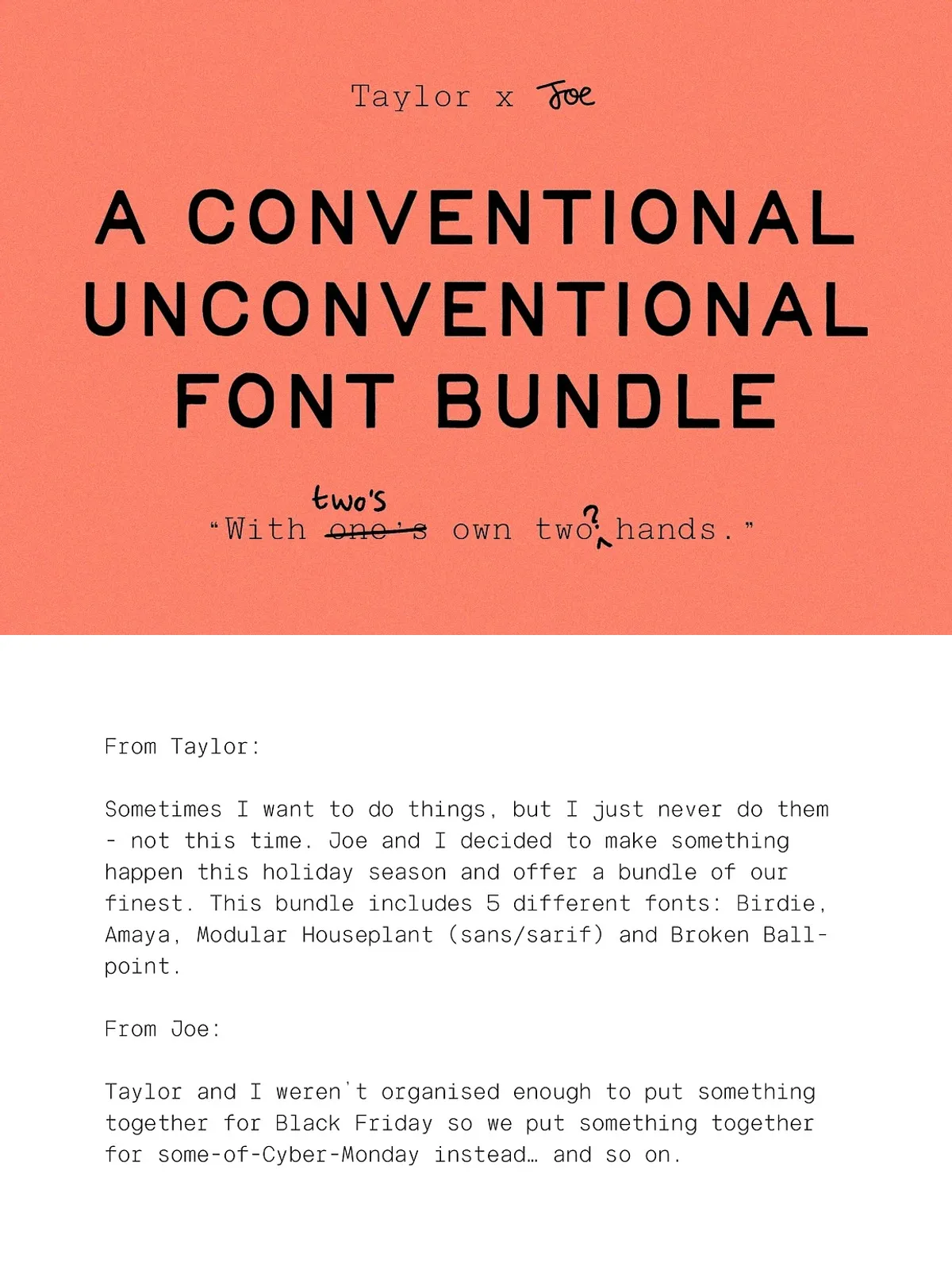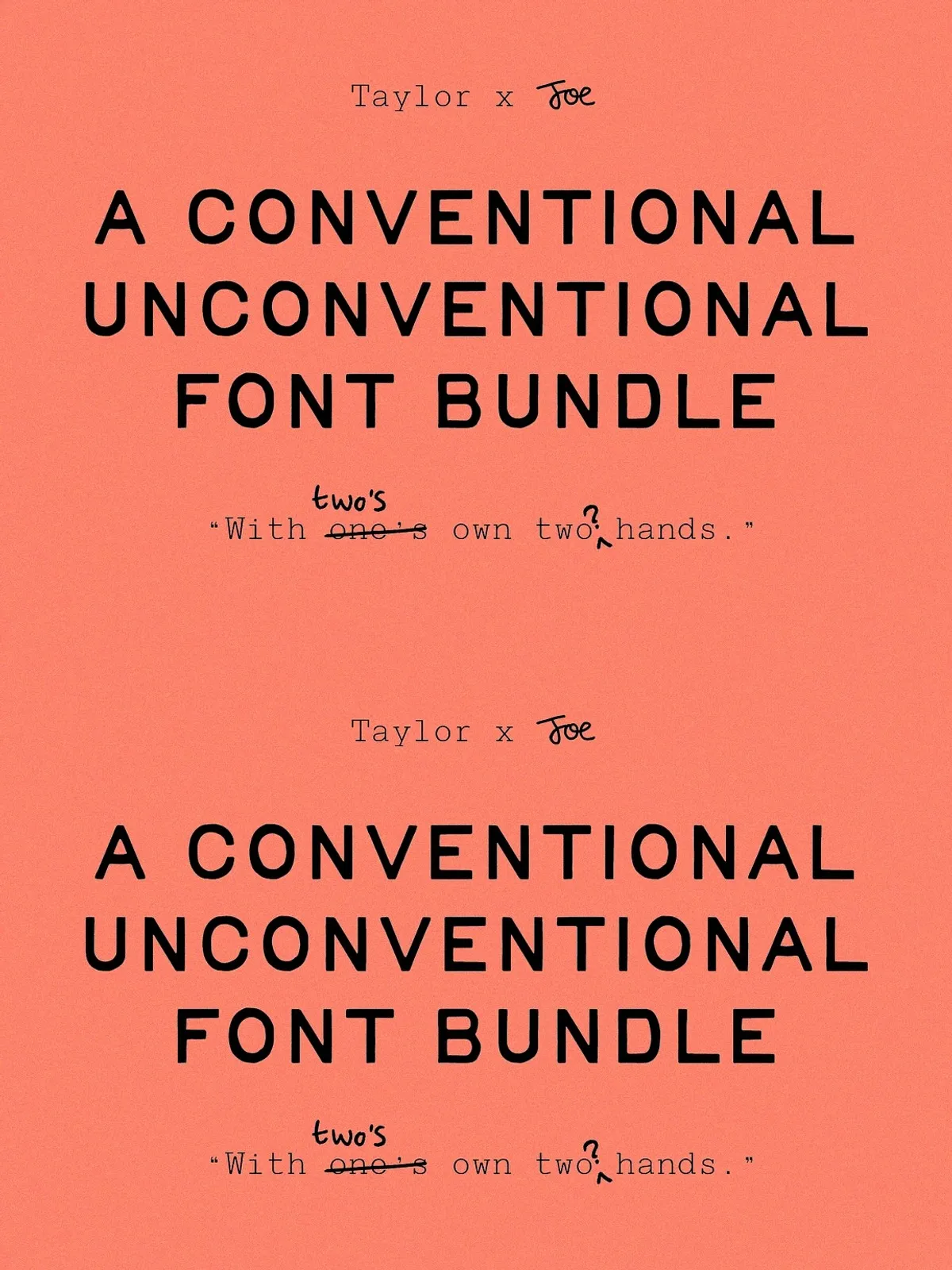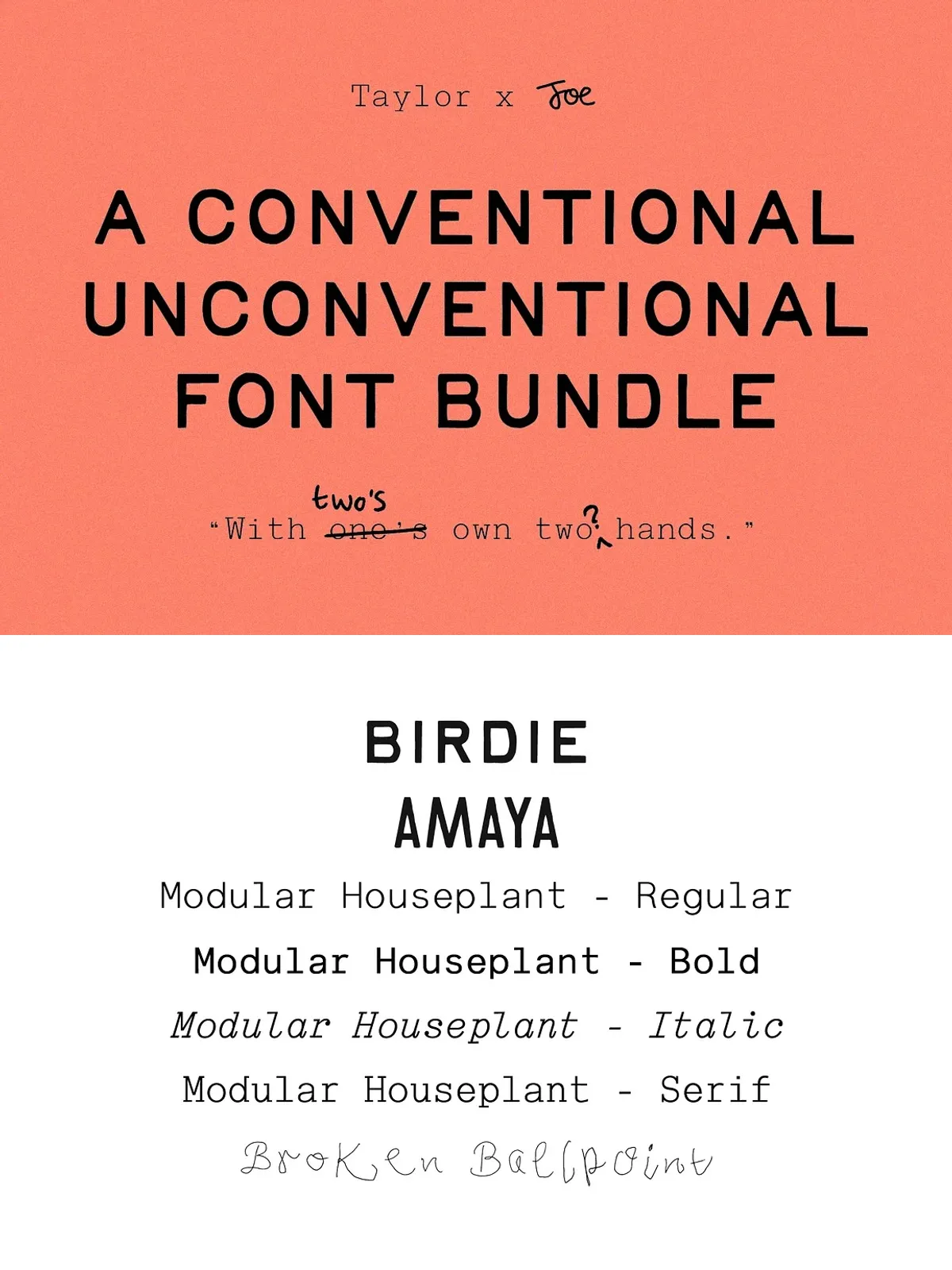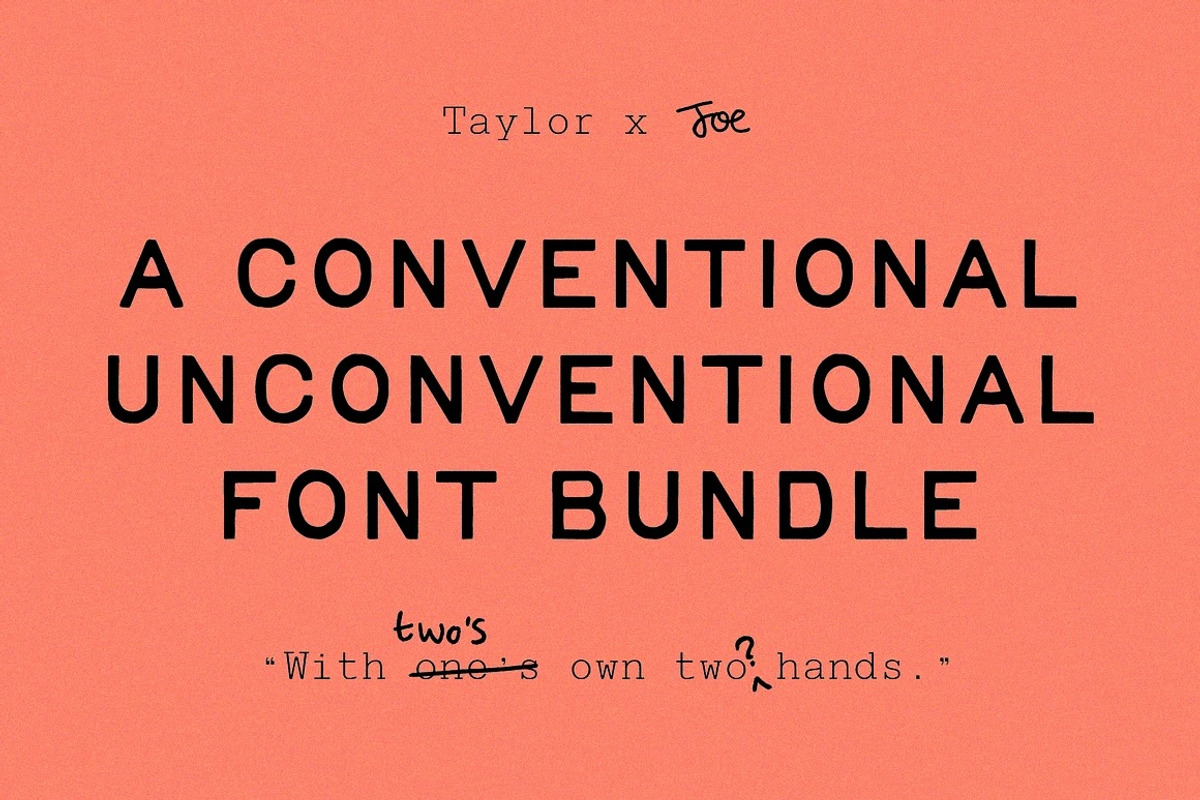
Step into the world of forward-thinking design with the exclusive Taylor Penton & Josiah Goldsmith Font Bundle — a meticulously curated collection that blends classic elegance with bold, unconventional expression. Whether you’re building a brand identity, crafting editorial layouts, or designing digital art, this bundle empowers you to break boundaries and make a lasting visual impact.
Curated by two leading voices in contemporary type design — Taylor Penton and Josiah Goldsmith — this bundle is not just a collection of fonts. It’s a creative toolkit for designers who value precision, personality, and purposeful aesthetics. From clean, geometric forms to expressive handcrafted lettering, each typeface was designed with intention and craftsmanship in mind.
What makes this bundle exceptional isn’t just the quality of the individual fonts — it’s the synergy between them. Taylor Penton’s work often emphasizes clarity and minimalism, while Josiah Goldsmith brings depth, rhythm, and artistic flair to his designs. Together, their styles create a dynamic range that supports both structured and expressive design approaches.
• A Balanced Mix of Conventional & Unconventional Styles
- Conventional Typefaces — Reliable, professional, and instantly readable. Perfect for headers, body text, and clean branding materials.
- Unconventional Typefaces — Bold, experimental, and visually striking. Ideal for logos, titles, posters, and statement pieces that demand attention.
This balance ensures you have the right tools for every stage of your project — from initial concept to final polish.
From editorial design to personal branding, the versatility of this bundle is unmatched. Here’s how top designers are putting it to work:
• Brand Identity & Logo Design
The unconventional fonts offer a distinctive voice for startups and established brands alike. Use them to craft logos that stand out in a crowded market — memorable, authentic, and visually compelling.
• Editorial & Magazine Layouts
Combine clean, conventional fonts for body text with bold, artistic alternatives for headlines and pull quotes. Create visual rhythm and hierarchy without sacrificing elegance.
• Digital & Print Marketing Materials
Whether it’s email newsletters, flyers, packaging, or social media assets, this bundle ensures your messaging is both on-brand and visually engaging.
• Personal Projects & Creative Expressions
If you’re a designer, artist, or content creator, this bundle fuels your passion. Use it to illustrate books, design stationery, build web typography, or simply experiment with new typographic ideas.